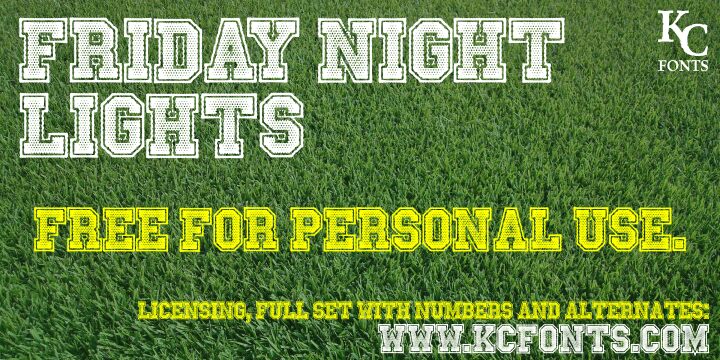
Friday Night Lights by Kevin Christopher is a free old-school decorative display font shaped like weathered varsity lettering. Broad slab serifs, layered borders, and a dense halftone fill give the capitals the look of worn screen-printed team gear.
Sports culture is its clearest setting, especially for stadium signage and athletic merchandise. It also suits game-day posters. The scuffed texture and jersey-style construction connect those uses with school event graphics and retro sports branding.